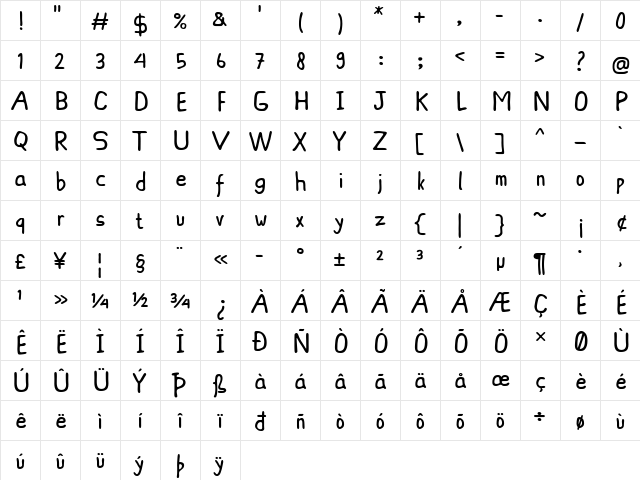
ASCOTA Regular
| Foundry | 7NTypes |
| Designer | Andrian Dehasta, Situjuh Nazara |
Design Context for ASCOTA Typeface
ASCOTA takes a measured approach to typography — its balanced proportions and neutral character make it a reliable workhorse for both digital and print work.